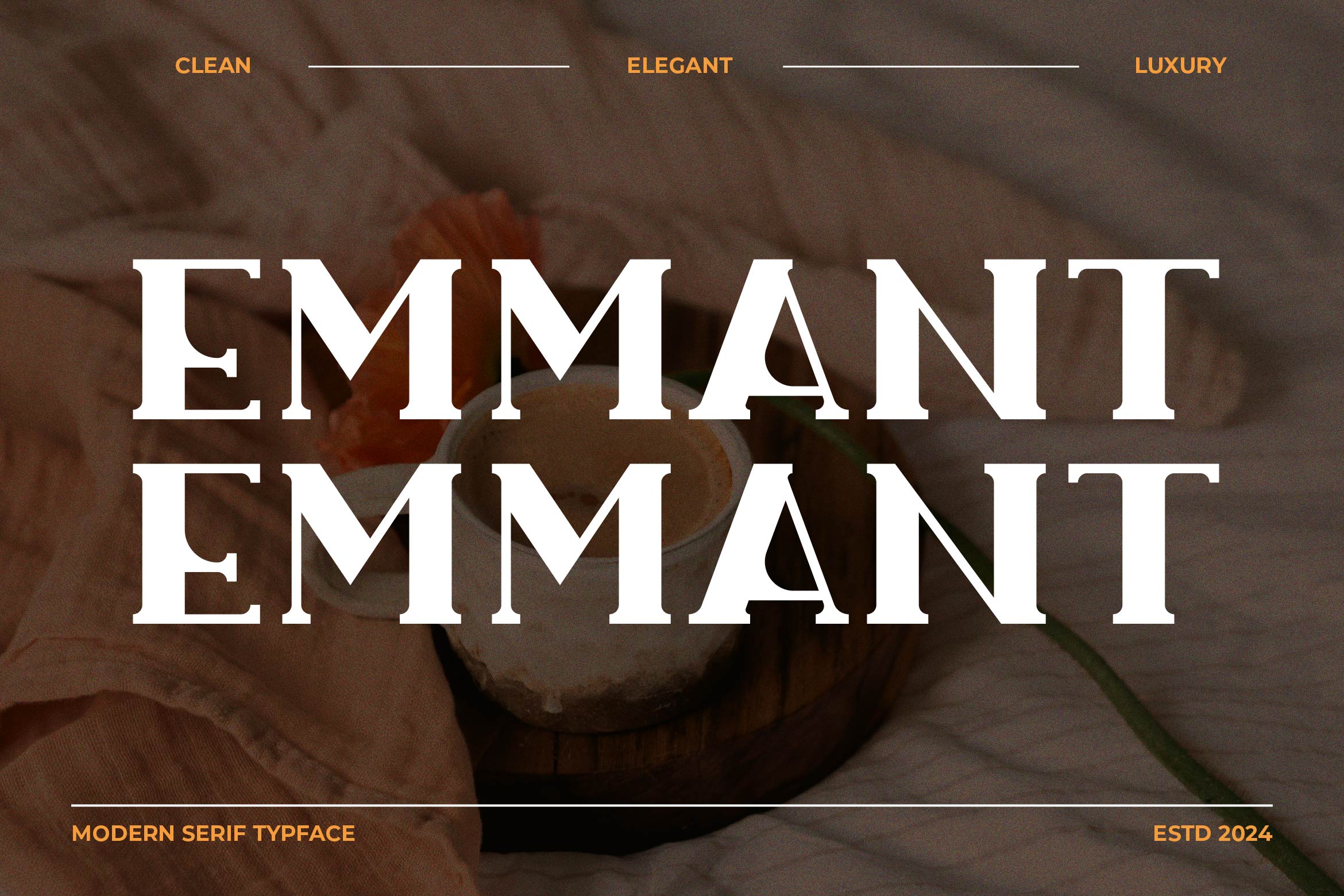
- Emmant Luxury Serif Font
Emmant is a refined serif typeface crafted to bring sophistication and charm to your typography. With its high-contrast strokes, sharp serifs, and graceful curves, Emmant strikes the perfect balance between classic beauty and modern elegance. It is ideal for luxury branding, editorial layouts, wedding invitations, packaging, book covers, and stylish logo designs.
The timeless structure of Emmant ensures excellent readability while adding a premium, high-end feel to your projects. Its elegant letterforms make it versatile for both display headlines and refined body text, giving every composition a polished and professional look.
This typeface includes uppercase and lowercase letters, numerals, punctuation, multilingual support, and a curated set of ligatures and stylistic alternates for creative expression.
Elevate your designs with Emmant — the elegant serif typeface that blends tradition, sophistication, and contemporary style.